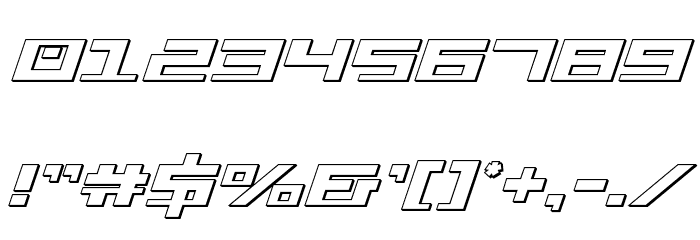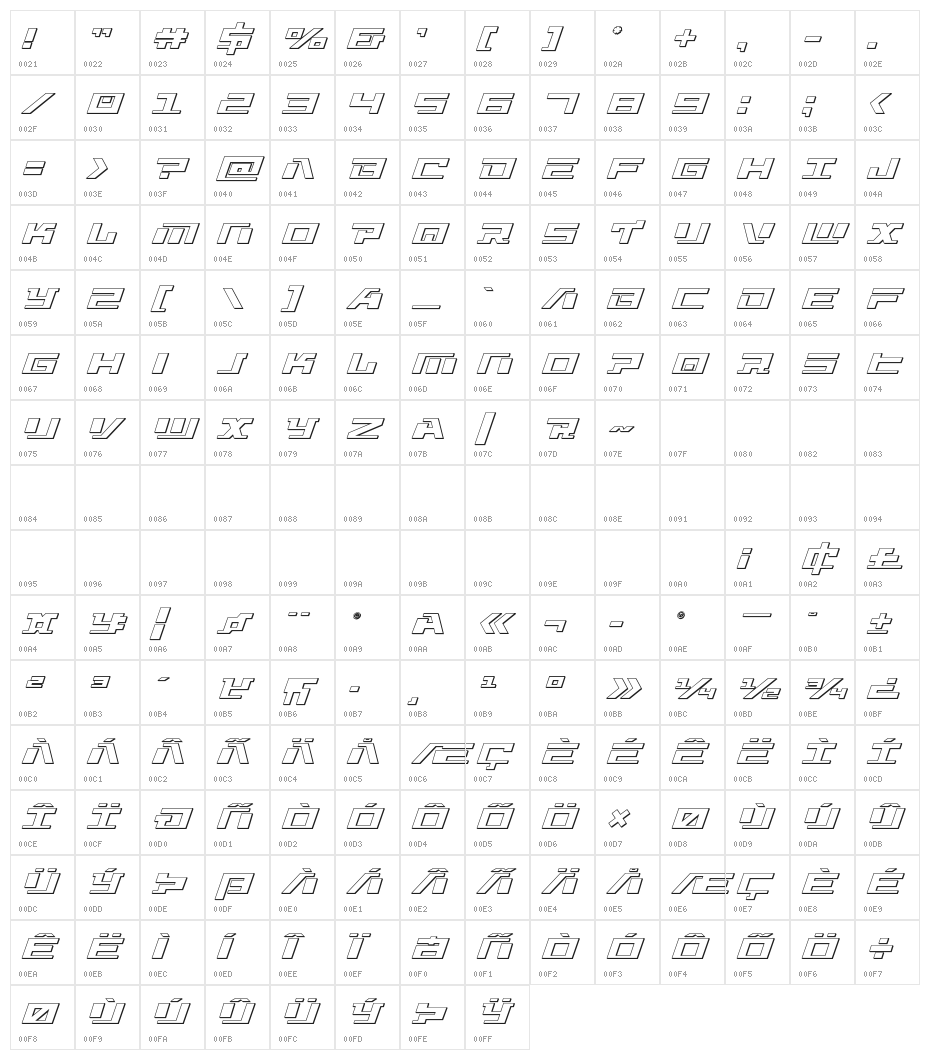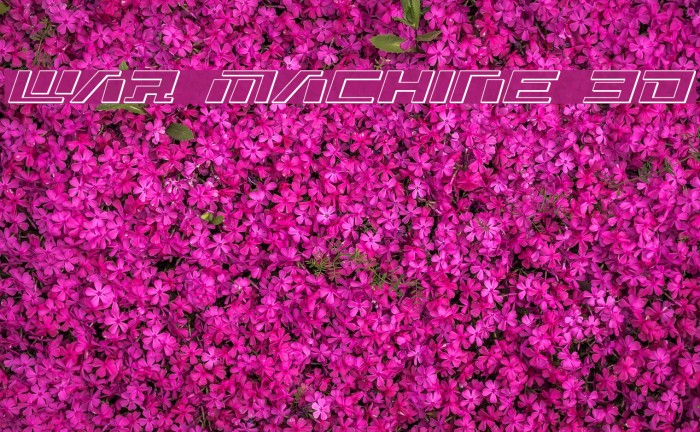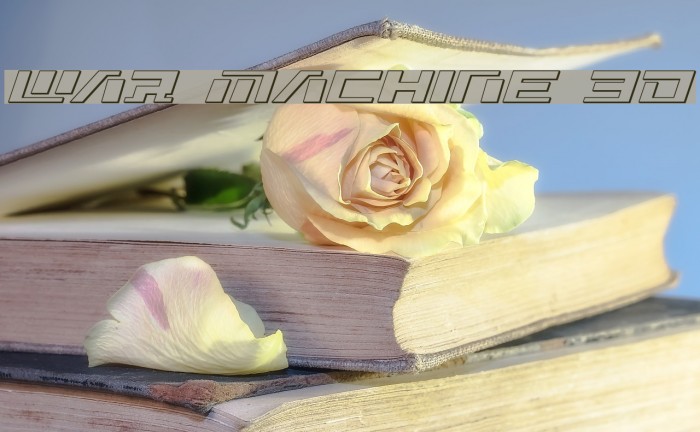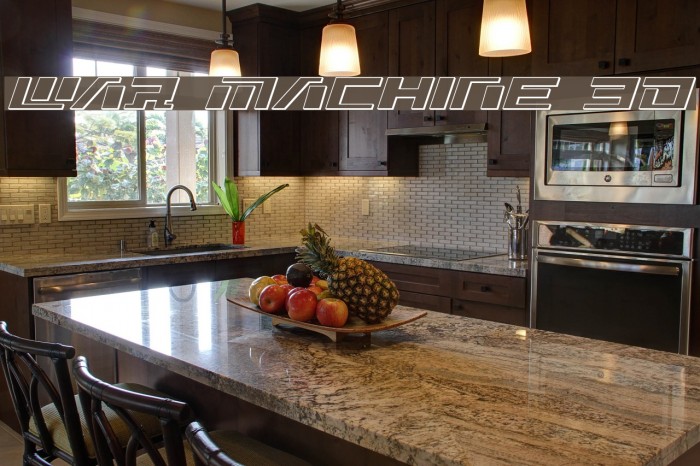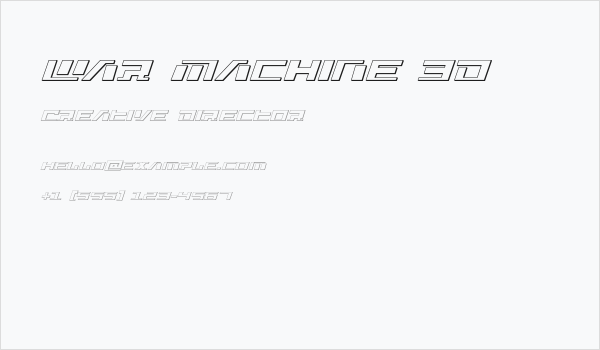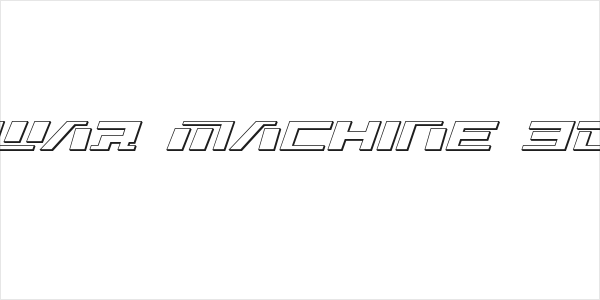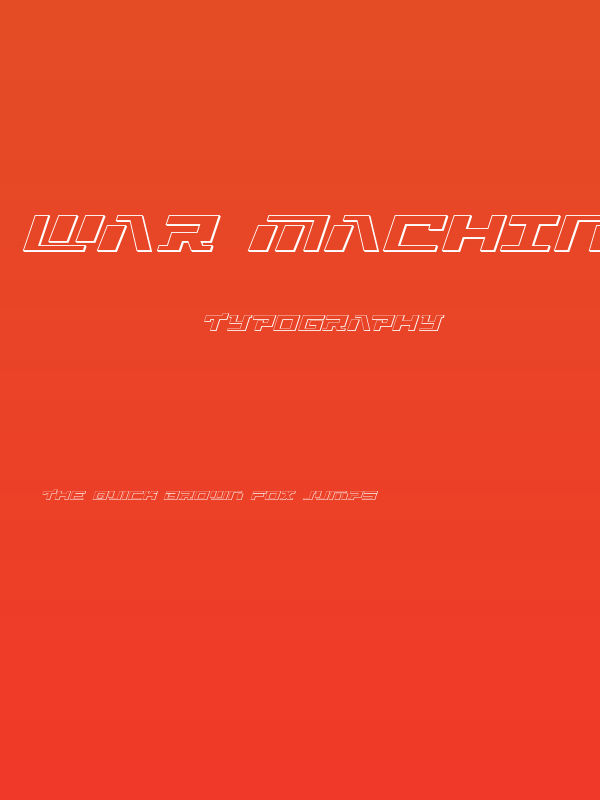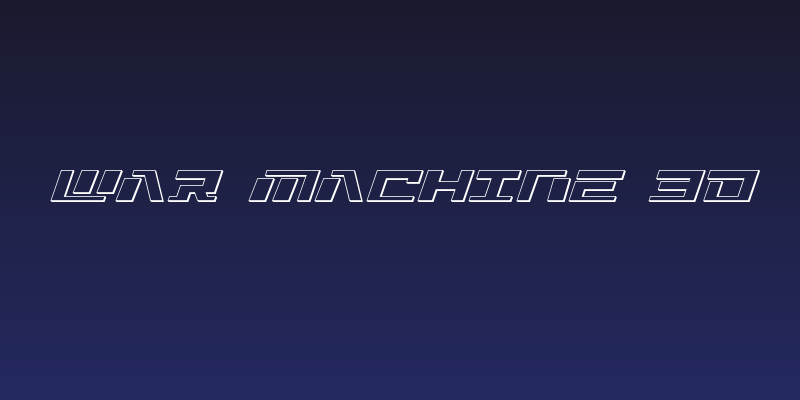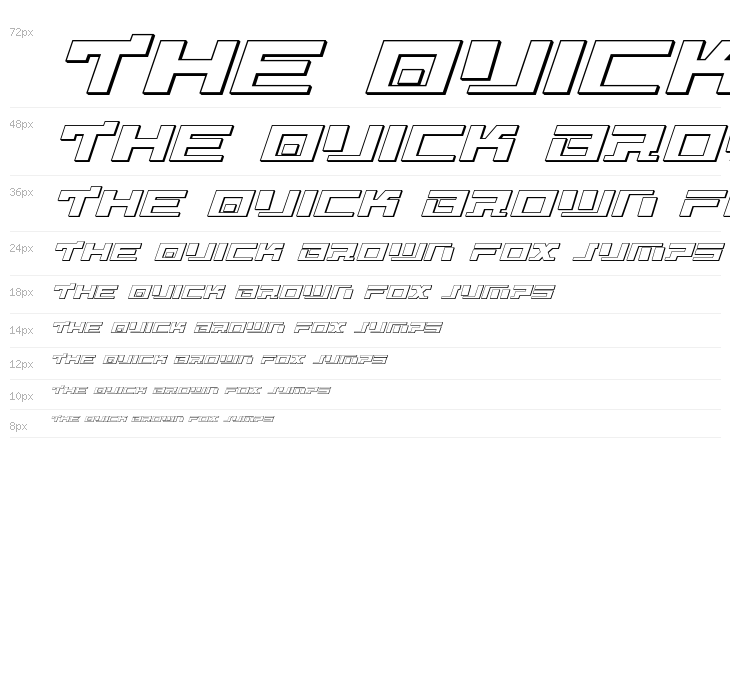
War Machine 3D Font
War Machine 3D Description
This font features a bold, futuristic design with a three-dimensional effect. The characters are outlined, creating a sense of depth and movement. The angular, geometric shapes give it a mechanical and industrial feel, reminiscent of technology and machinery. The uppercase and lowercase letters maintain a consistent style, with sharp edges and a uniform width. Numbers and special characters are designed to match the overall aesthetic, ensuring cohesion across all elements. The font's unique style makes it stand out, ideal for projects that require a modern and edgy look.
| Proposed Projects | Ideal for technology branding, video game titles, sci-fi movie posters, and industrial-themed designs. |